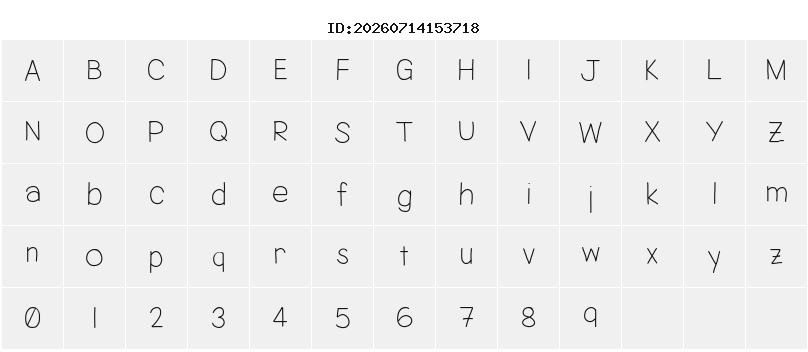
• Font Name: Jacquelyn's Hand Medium
• Designer: Jacquelyn Soh
About Jacquelyn's Hand Medium.ttf
Jacquelyn's Hand Medium.ttf is a modern, elegant sans-serif font designed for ultimate readability and visual harmony. Perfect for branding, headlines, web design, and print materials.